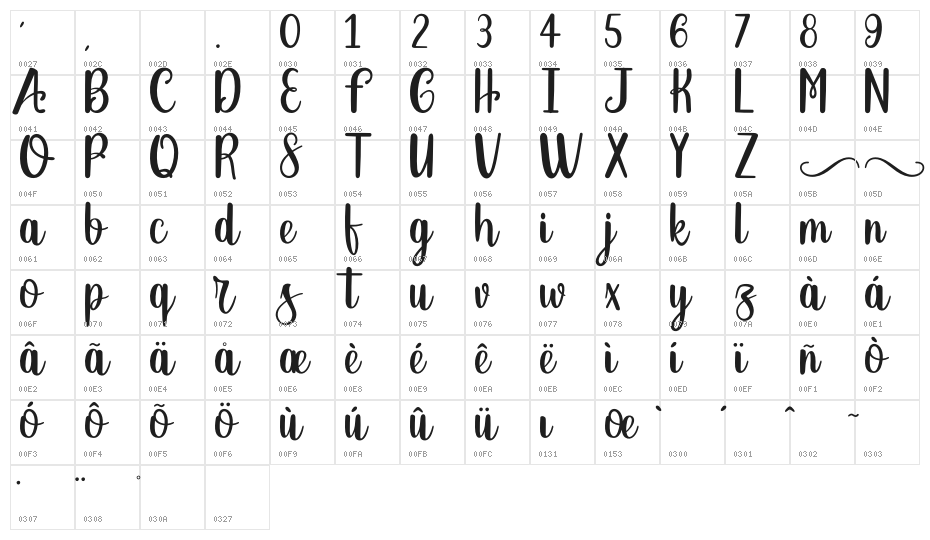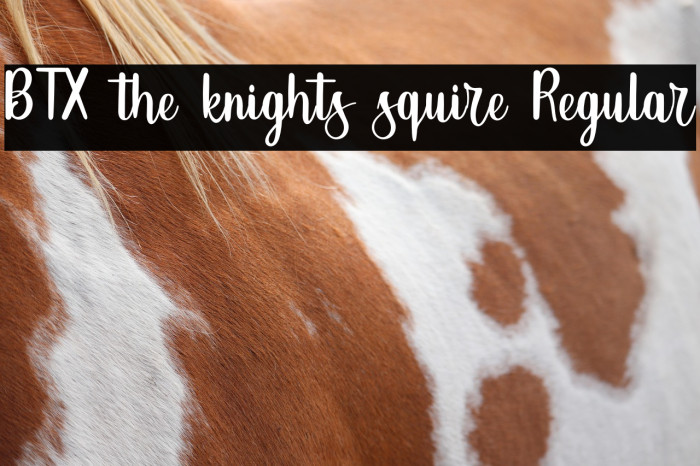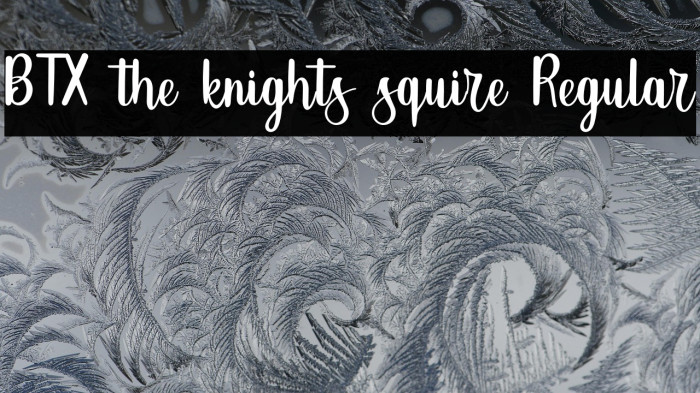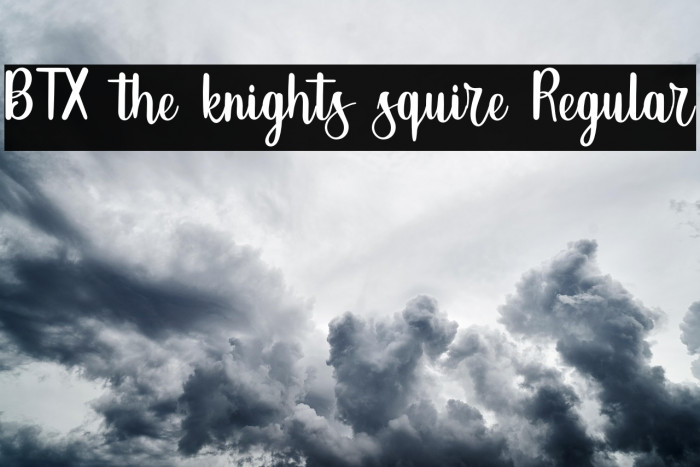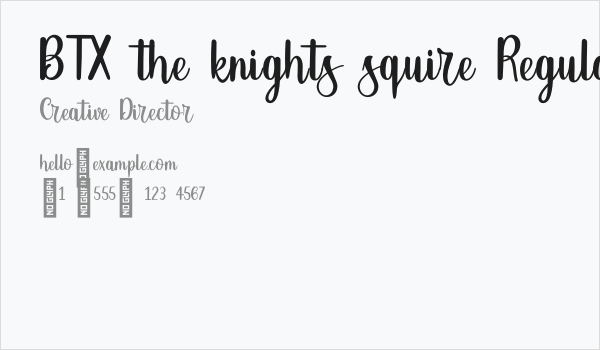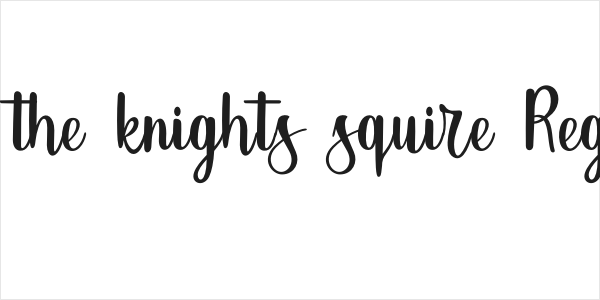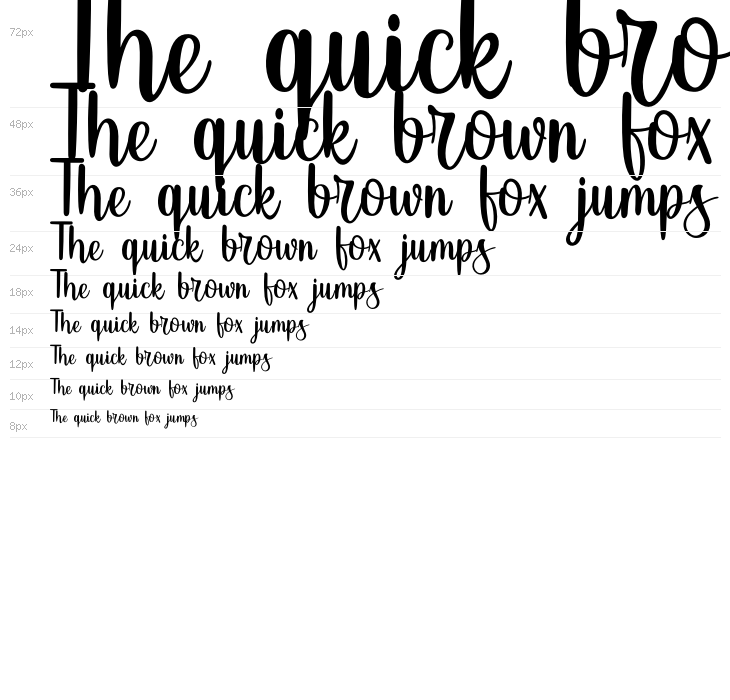
BTX-the-knights-squire Regular Font
BTX-the-knights-squire Regular Description
This font features a playful and dynamic script style with a handwritten feel. The uppercase letters are bold and slightly condensed, with a whimsical flair that adds character to each letterform. The lowercase letters maintain a consistent flow, with smooth curves and loops that enhance the font's organic appearance. The numerals are distinct and easy to read, complementing the overall style. Special characters are creatively integrated, maintaining the font's cohesive look. The font's unique personality makes it suitable for projects that require a touch of creativity and elegance.
| Proposed Projects | Ideal for invitations, greeting cards, branding, and creative projects that require a personal touch. |